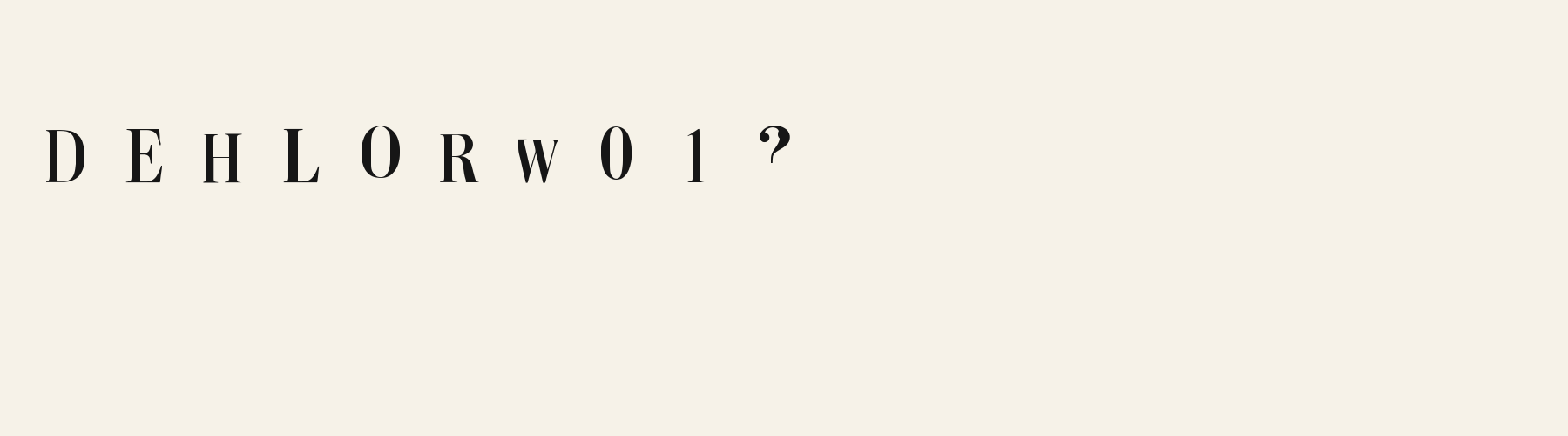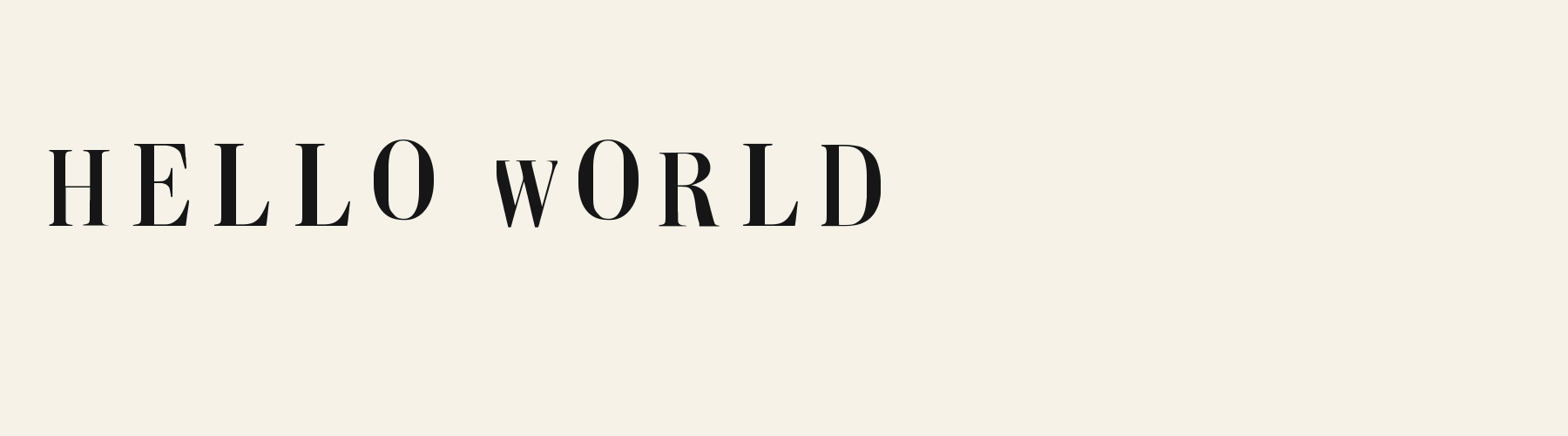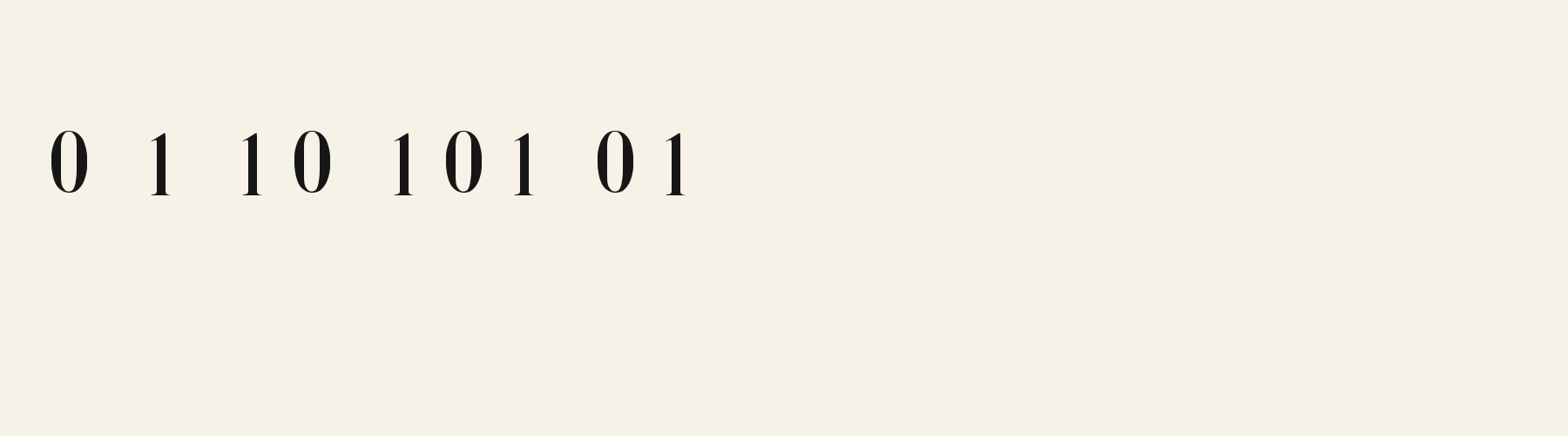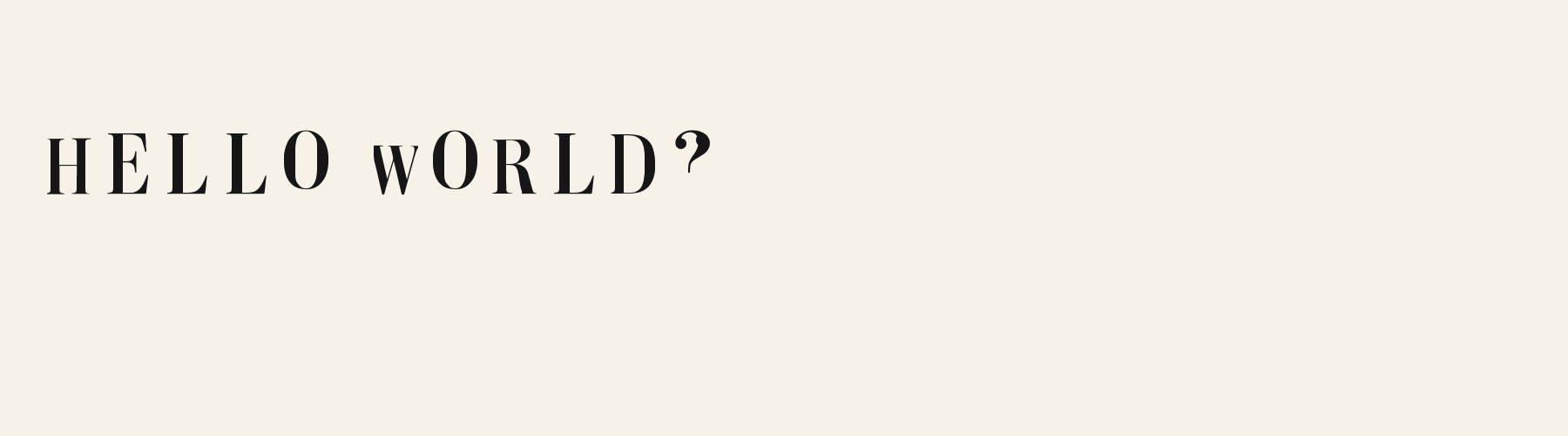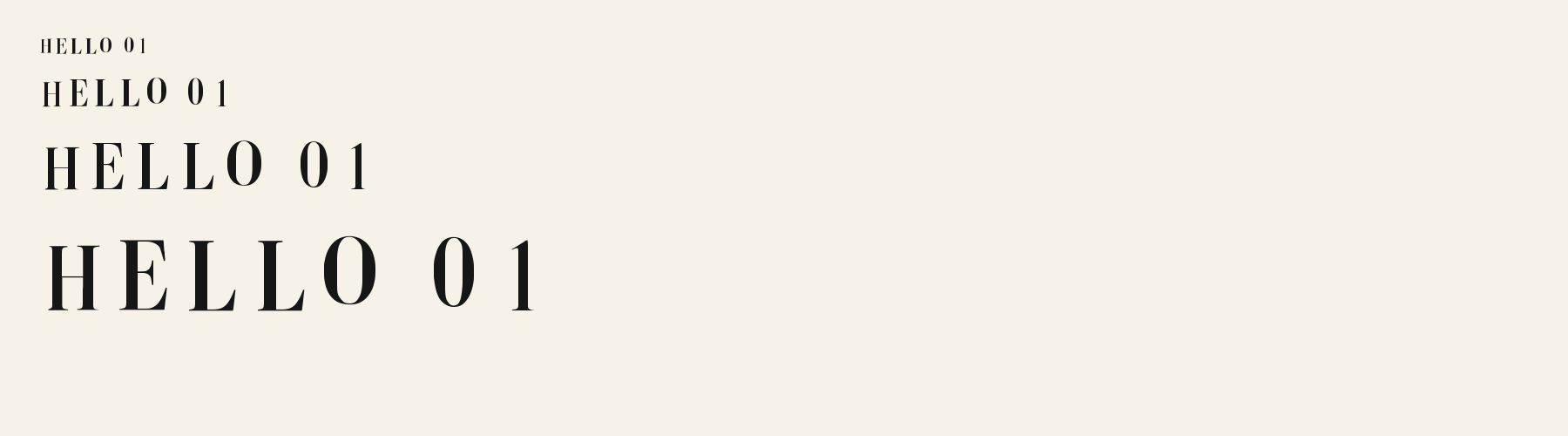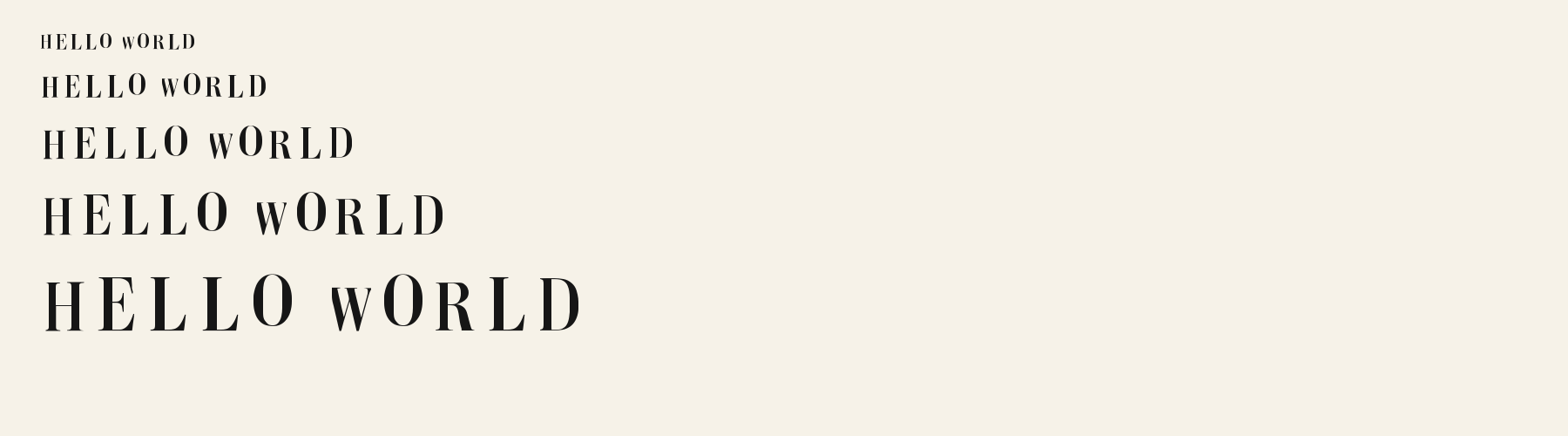
Serif Editorial High Tall Oval Hairline Font
Serif Editorial High combines tall capitals with heavy vertical strokes and extremely fine connecting lines.
Tall Oval Hairline Letterforms
Serif Editorial High combines tall capitals with heavy vertical strokes and extremely fine connecting lines. The O has a smooth oval outer contour around a narrow, fully enclosed counter, with its top and bottom reduced to delicate hairlines. The R carries a rounded upper bowl into a substantial diagonal leg that ends in a flat, spreading foot. On the E, fine horizontal arms meet a dark upright, while pointed terminal tips sharpen the silhouette. These contrasts give short words a formal, composed rhythm, with enough dark structure to anchor a restrained layout.
Inspect the O counter, E arms and R leg in your actual wording, especially after reduction or reversal. Check adjacent capitals individually. For Latin accents and other scripts, verify character availability and the appearance of any fallback letters.
Try this face for the main heading, supported by a plain sans with steady strokes for descriptions and labels. Its dark uprights and fragile horizontal details provide a concrete contrast with a more even supporting texture.
Compare the original spacing with a slightly wider setting. Extra space separates the broad vertical strokes, but also changes the compact rhythm of the repeated L forms. Inspect the gap between words alongside the letter spacing.
In this uppercase phrase, Serif Editorial High has broader bowls and heavier stems relative to its letter height. Its R finishes with a spreading diagonal leg, giving the line a firm, compact presence.
Quartz Nocturne gives the same uppercase phrase a much narrower, more elongated silhouette. Its R leg curls upward at the terminal, adding a decorative detail absent from the straighter finish of the supplied design.
Book or album cover. Tall capitals and delicate hairlines give a short cover title a formal presence with room for generous surrounding space. An Evening Together
Card or invitation. Sharp serifs and contrasting stroke weights suit an invitation heading where the lettering can carry the decoration. RESERVE BLEND
Product label. Heavy uprights and smooth oval bowls give a brief product name a composed silhouette within a simple label.
With an x-height of 73.8% of the cap height, its lowercase stands above the 69.6% median for serif fonts, taller than 41 of the 51 other serif fonts. Ascenders on b, d, h, k and l rise 13.5% above the capitals, and descenders on g, j, p, q and y drop 22.3% of the cap height below the baseline, shallower than 50 of the 51 other serif fonts. It sets narrow: an average lowercase letter, spacing included, is 76.5% as wide as the capitals are tall (an average capital, 83.2%), 8.4% less than the median for serif fonts, so more words fit on a line. The o is close to a circle, 0.93 times as wide as it is tall, and R is the widest capital, at 1.04 times the width of H. The O stops 1.4% of the cap height short of H and dips 1.1% below the baseline.
Vertical stems measure 17.2% of the cap height, heavier than 25 of the 44 other serif fonts. Ink covers 31.1% of each lowercase letter's box (its advance width by the cap height), lighter than 27 of the 51 other serif fonts. Strokes change thickness with direction: the sides of o and O are 11.4 times as thick as their tops and bottoms.
Its 95 characters include 52 Latin letters, plus 43 figures, punctuation marks and symbols; there are no accented Latin letters beyond A to Z. The word space measures 46% of the cap height, and the blank space either side of a lowercase letter takes up 13% of its width. The font carries no kerning, so spacing comes from each letter’s own side bearings. The figures have different widths, so columns of numbers set in Serif Editorial High will not line up exactly.
- Tall proportions, compact capitals, clear double-storey a and g, sharp serifs